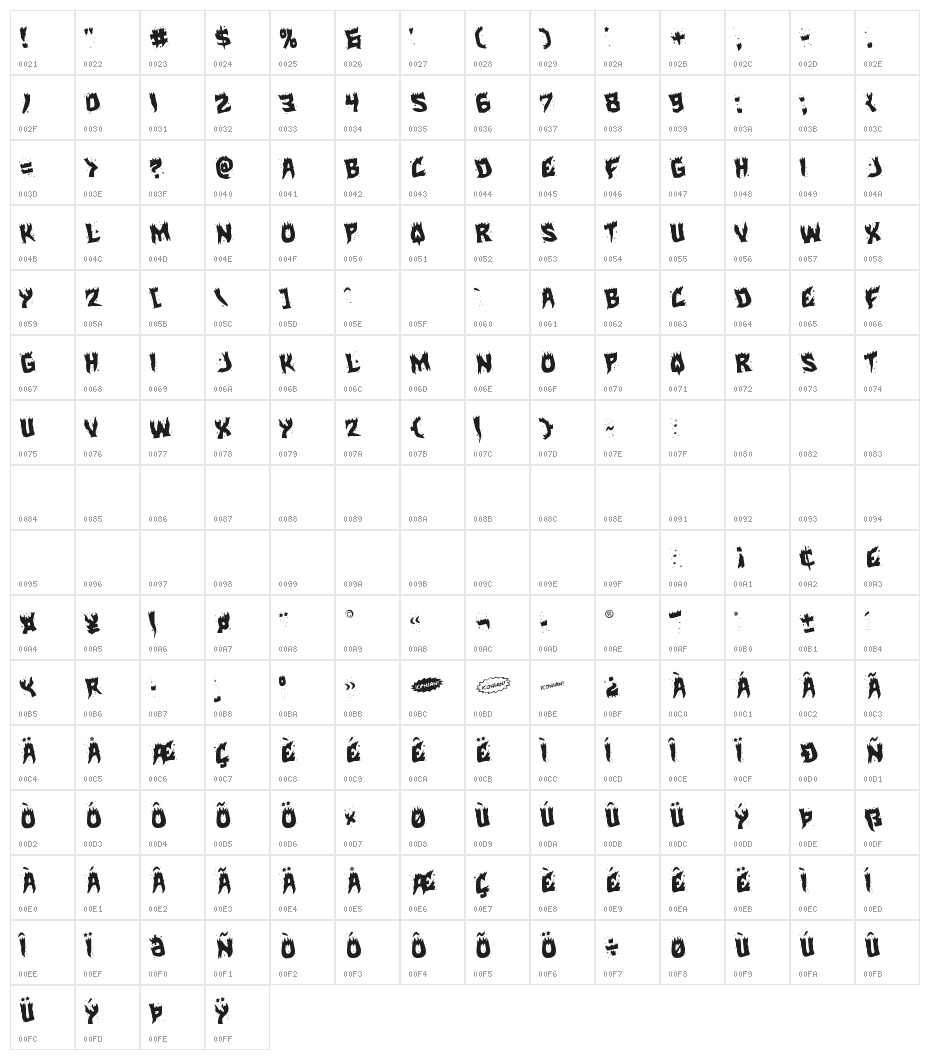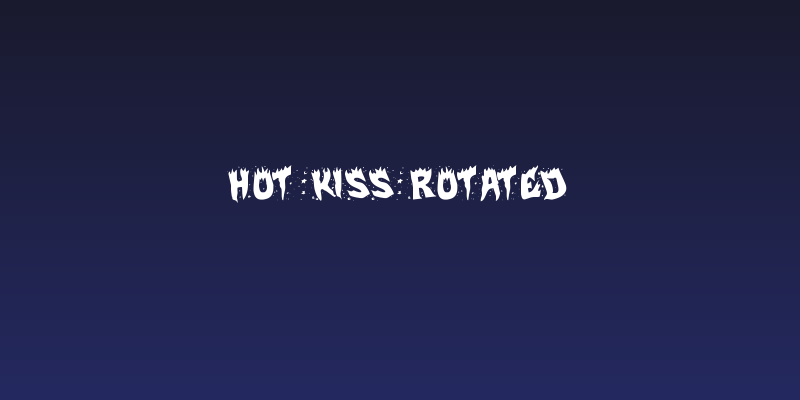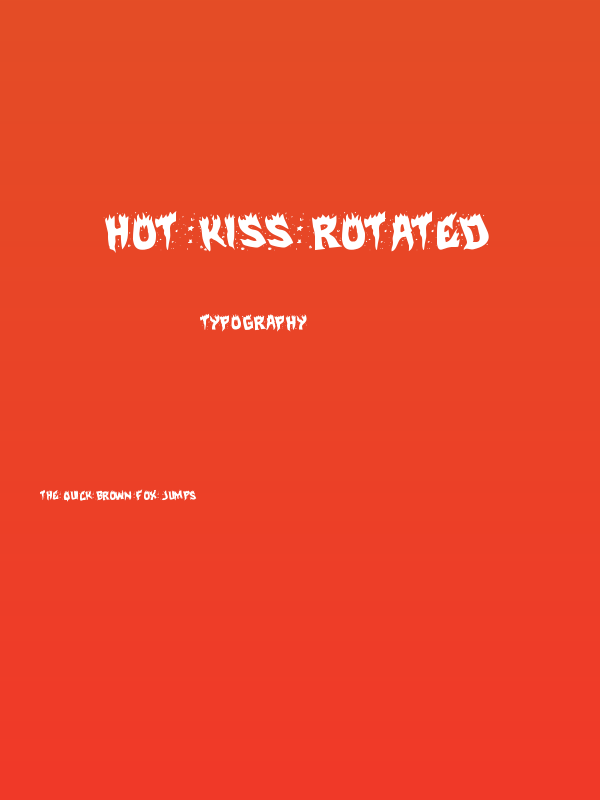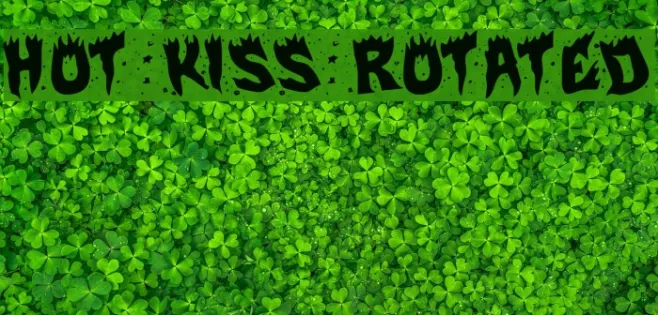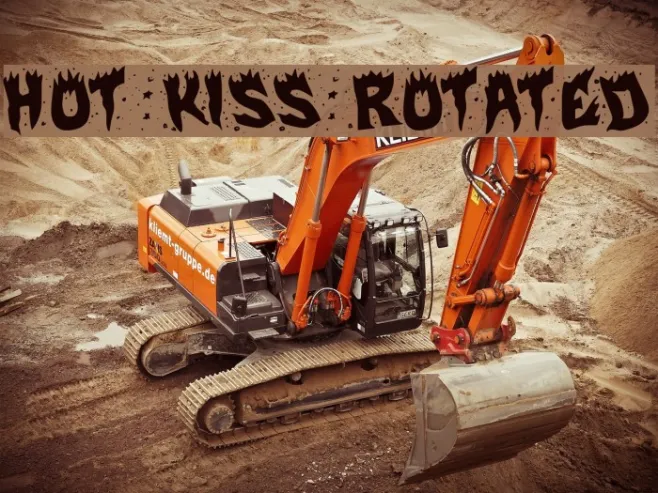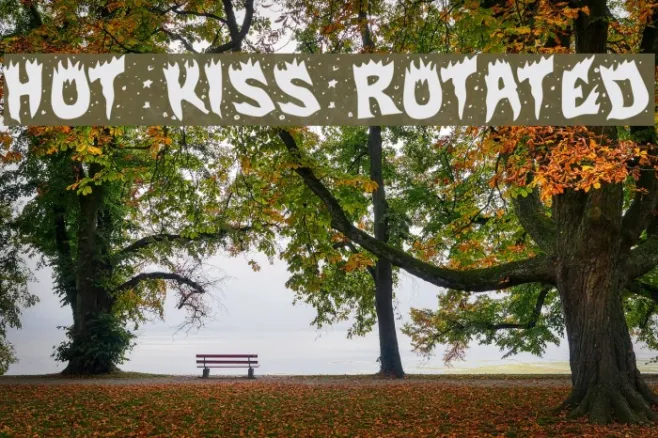
Hot Kiss Rotated Font
Hot Kiss Rotated Description
This font features a bold, jagged design with a distressed, grunge-like appearance. The characters are irregular and dynamic, with sharp edges and a sense of movement, reminiscent of flames or splatters. The uppercase and lowercase letters maintain a consistent style, with each character exhibiting unique variations that add to the chaotic aesthetic. The numbers and special characters follow the same design principles, ensuring a cohesive look across all elements. This font is ideal for projects that require a dramatic and edgy visual impact.
| Proposed Projects | Ideal for horror-themed posters, edgy branding, album covers, and Halloween event promotions. |